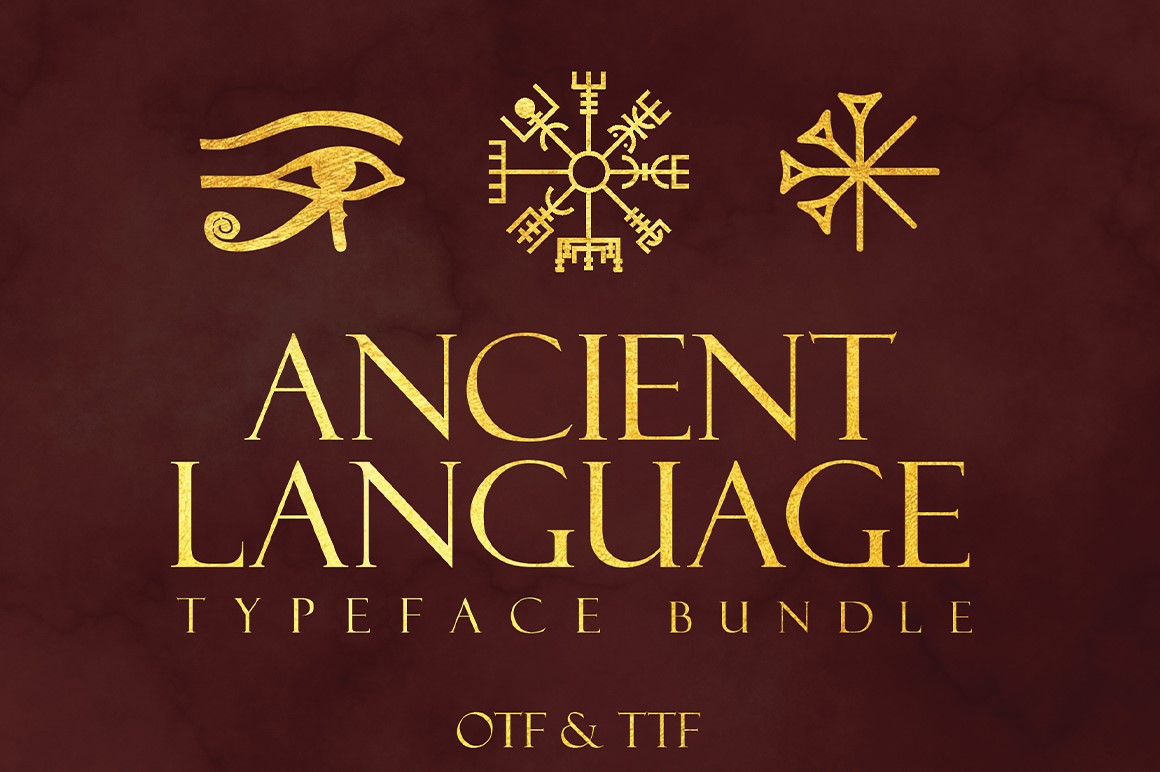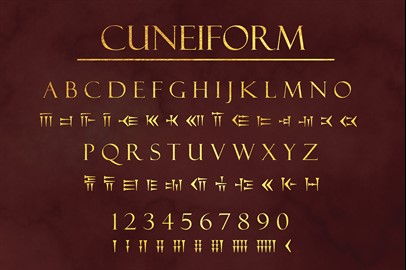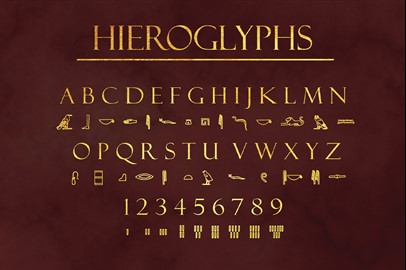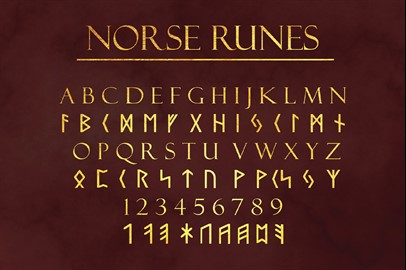
Ancient Languages Typeface Bundle
An incredible bundle of 3 ancient language typefaces: Cuneiform, the first system of writing in human civilization; Elder Futhark the language of the Vikings; Hieroglyphs, the language of the Egyptian people. These languages have been brought back from the past and made into fonts to bring your projects to life with authenticity. This typeface is perfect for logos, monograms, titles, games, posters, and more. These languages are very old and - although as accurate as possible - is by no means a perfect translating tool.
The cuneiform typeface contributed to multi-award-winning designs as shown here